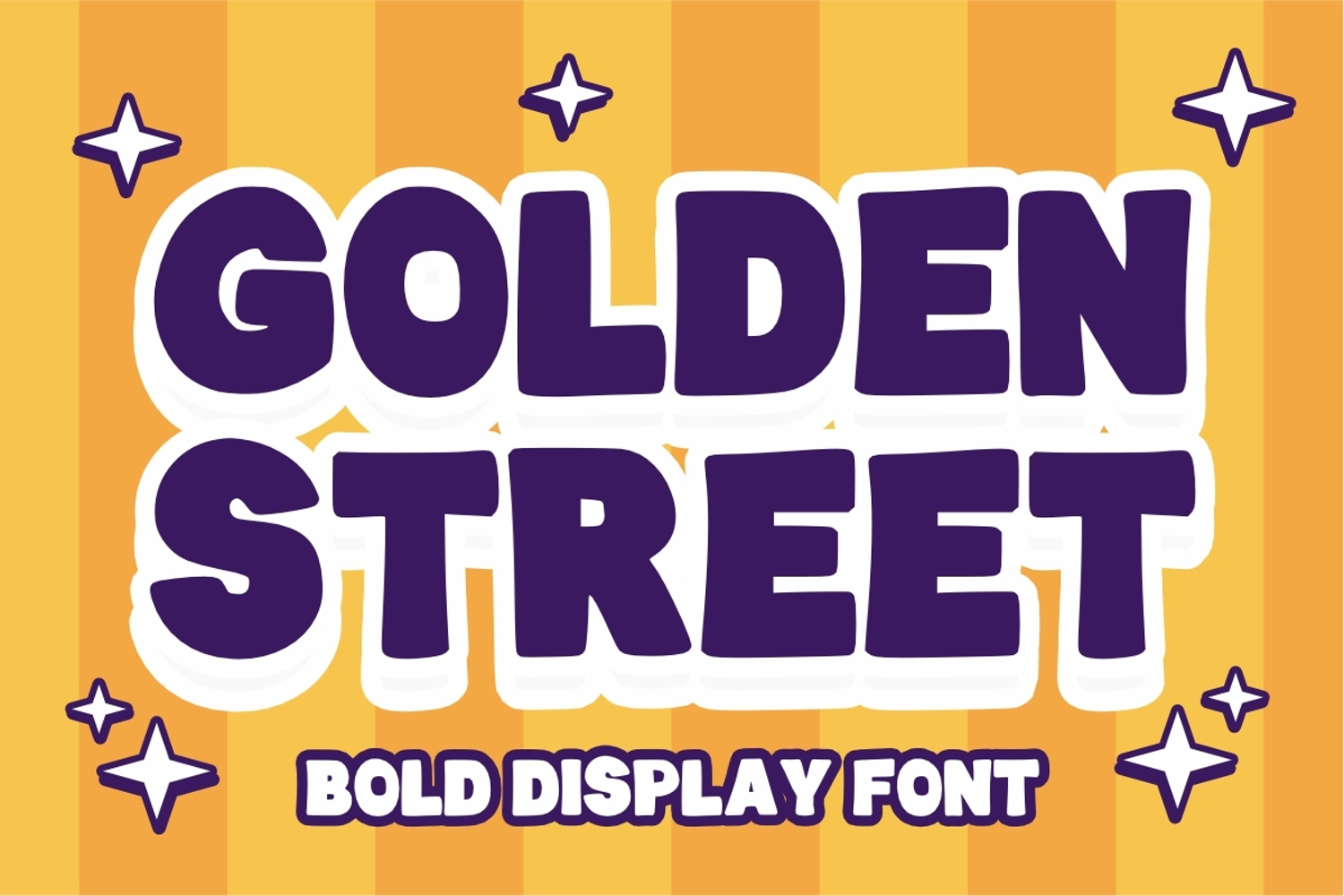
Golden Street
Golden Street is a childish, cartoon display font that conveys impeccable friendliness. Whether you’re using it for crafts, digital design, presentations, or making greeting cards, this font has the potential to become your favorite go-to font, no matter the occasion!
Golden Street